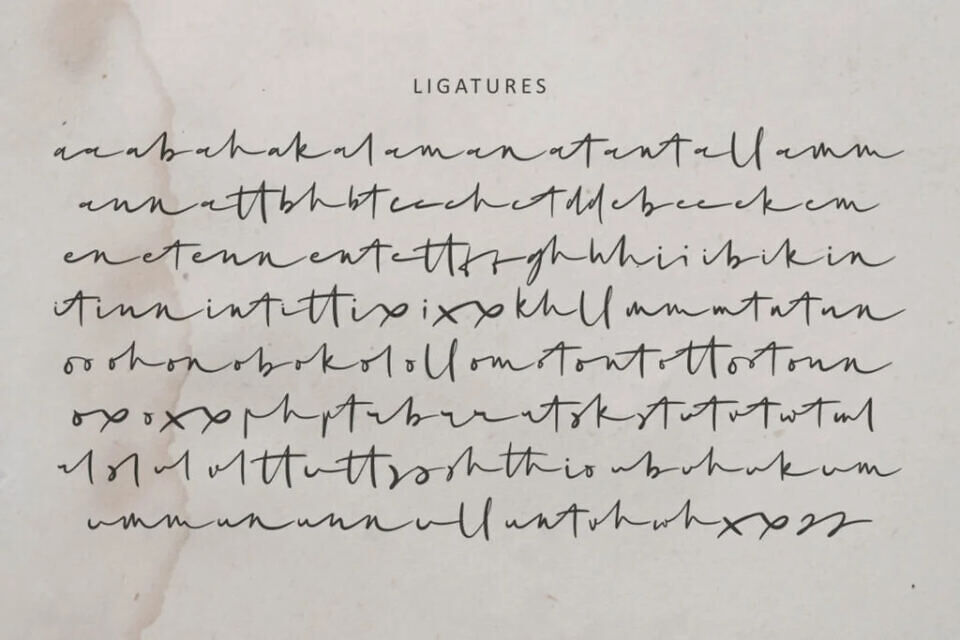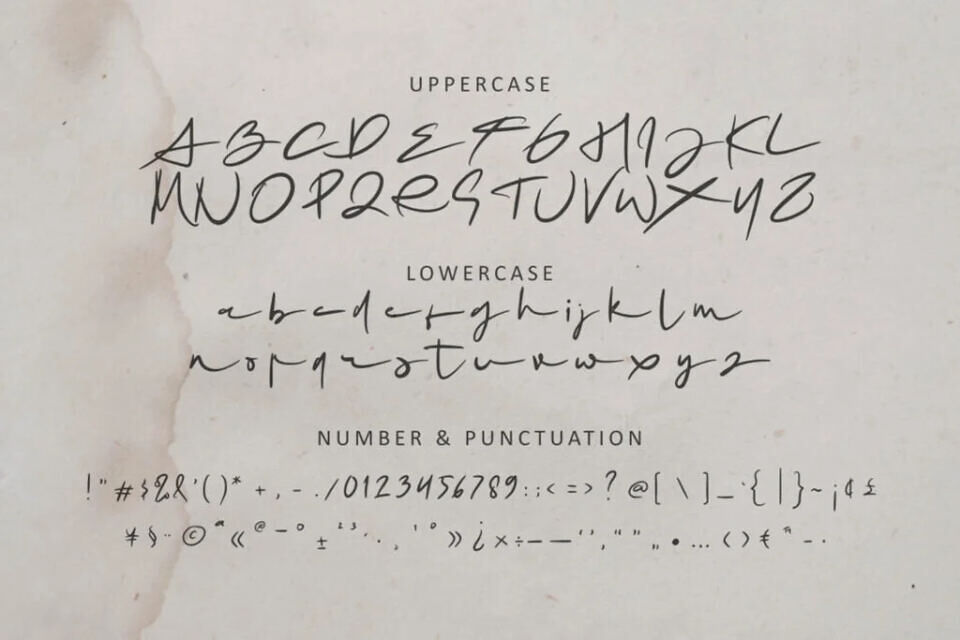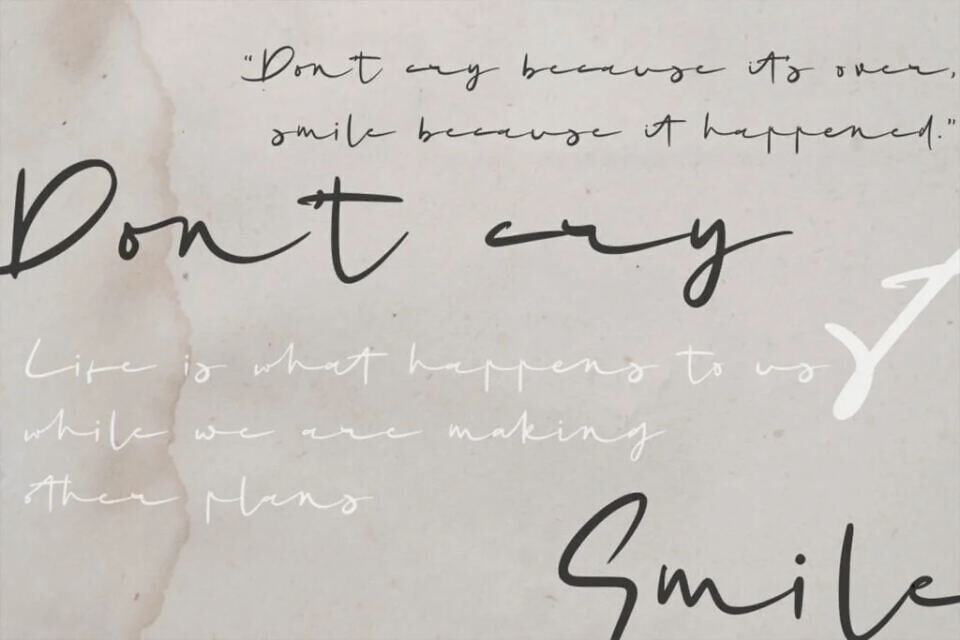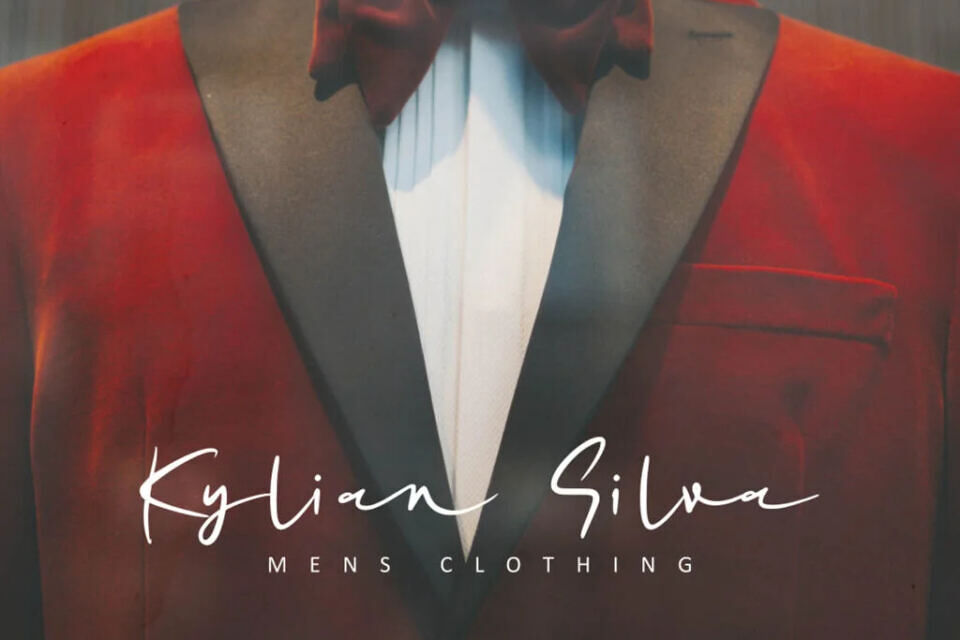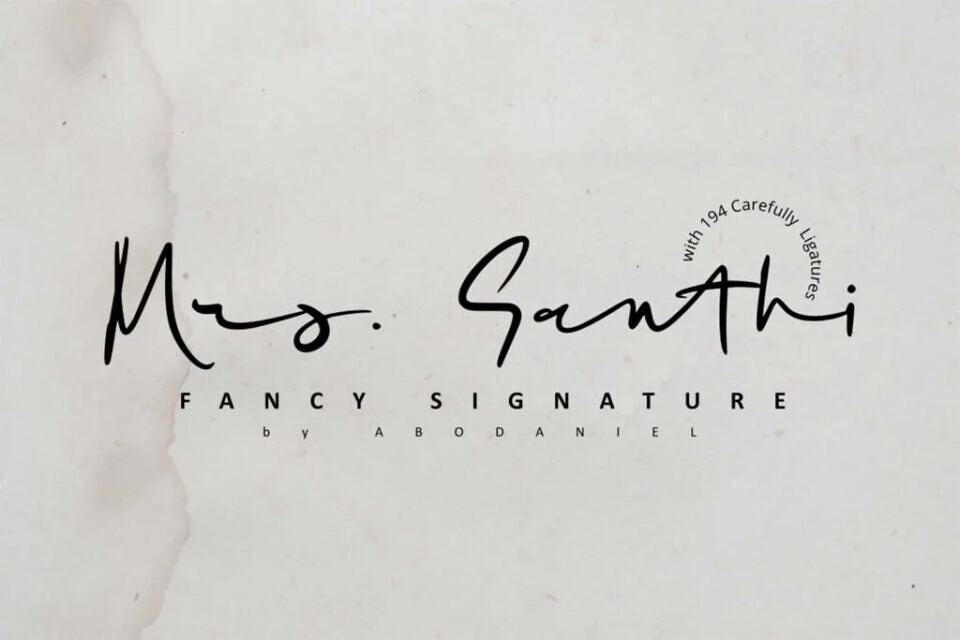
Mrs . Santhi Font
Mrs. Santhi is a fancy signature font that exudes elegance and uniqueness, perfect for adding a personal touch to your designs. Featuring uppercase and lowercase letters, numbers, punctuations, and an impressive 194 ligatures for a natural, flowing script appearance, it supports multilingual characters via PUA encoding.
Ideal for branding, wedding invitations, photography overlays, inspirational quotes, watermarks, ads, product packaging, and labels.